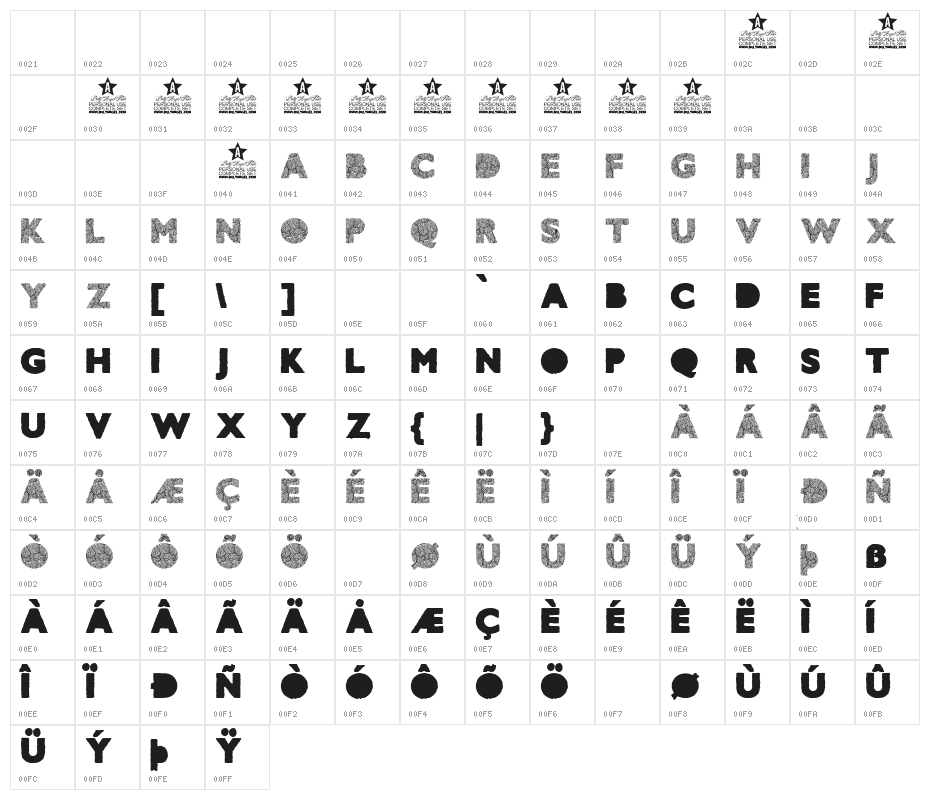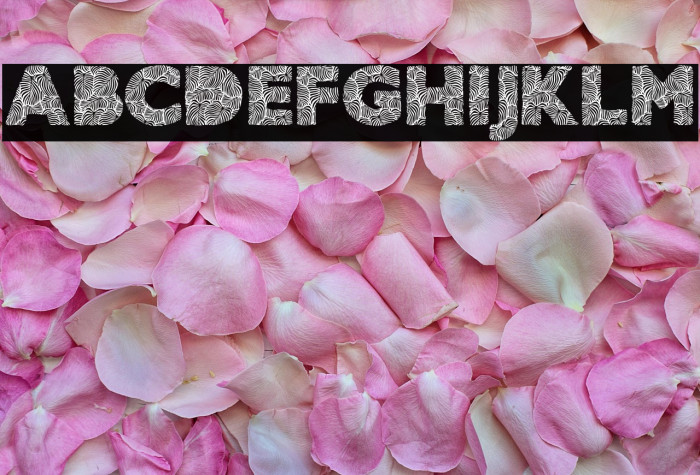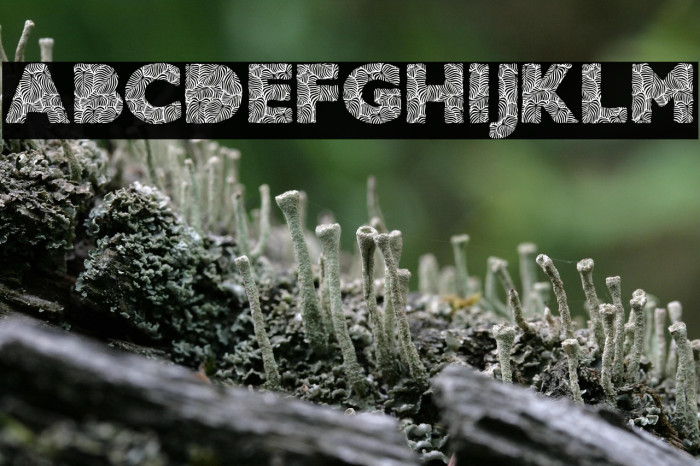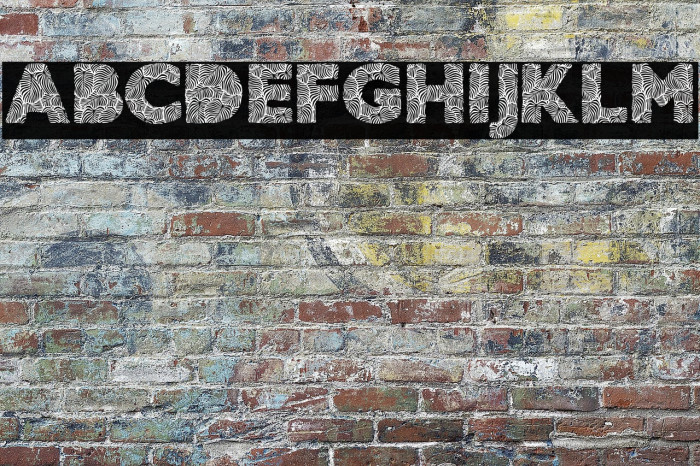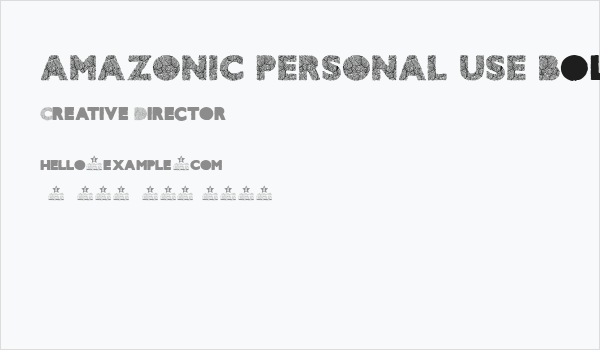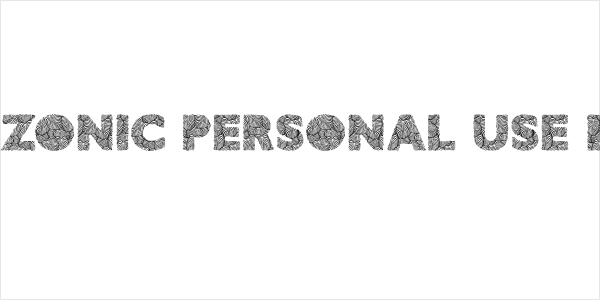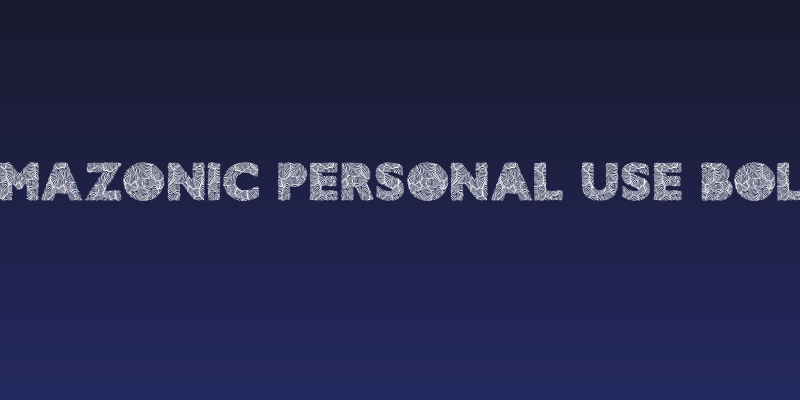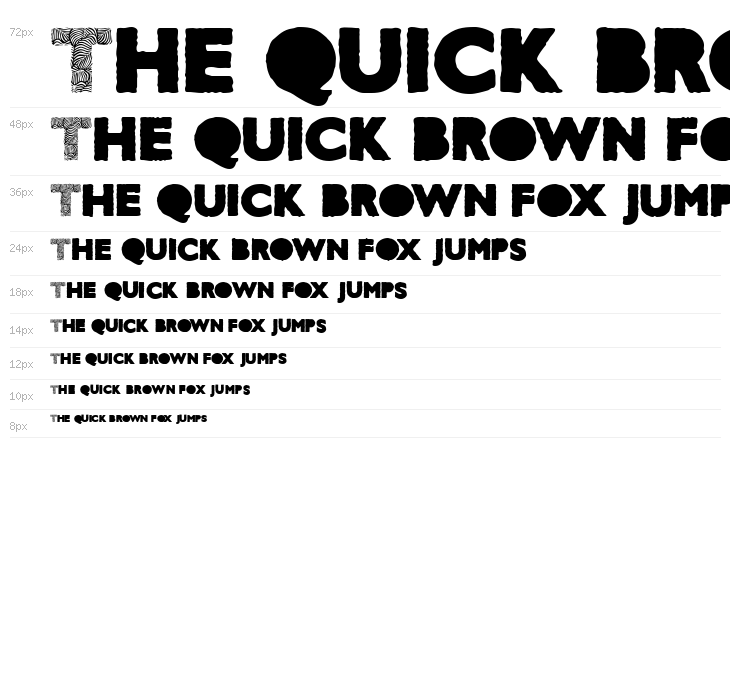
AMAZONIC PERSONAL USE Bold Font
AMAZONIC PERSONAL USE Bold Description
This font features a bold and decorative style with intricate patterns filling each letterform, creating a visually striking effect. The uppercase letters are designed with a unique texture that resembles natural elements, adding an organic feel to the text. The bold weight of the font ensures strong visibility, making it ideal for eye-catching designs. The characters are evenly spaced, providing a balanced appearance. This font is perfect for projects that require a touch of creativity and flair, such as posters, headlines, and artistic branding.
| Proposed Projects | Ideal for posters, artistic branding, headlines, and creative design projects. |